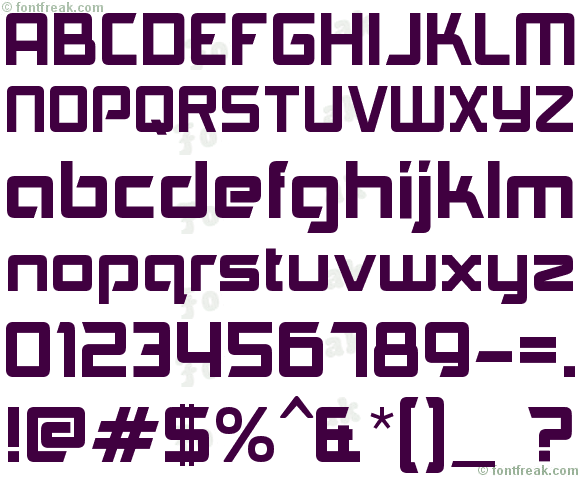
Akashi Regular
About Akashi Regular
The Akashi Regular font, designed by Ten by Twenty, is a striking sans-serif typeface that combines modern aesthetics with a sense of uniqueness. This font showcases a bold stroke weight, providing a commanding presence without compromising readability. The clean lines and geometric shapes create a balanced visual appeal, with consistent spacing that enhances legibility across various applications. Akashi Regular features subtle decorative elements that add character, making it an excellent choice for both professional and creative projects.
This versatile font is perfect for a range of use cases, including restaurant menus where clarity is key, movie posters that demand attention, and branding materials that need a contemporary touch. Its unique style also makes it suitable for event flyers and promotional graphics, allowing small business owners and content creators to present their messages with confidence. The Akashi Regular font is particularly appealing to graphic designers seeking fresh and innovative typefaces to elevate their work.
Targeting a diverse audience, Akashi Regular is ideal for anyone looking to make a statement through typography. Whether you are a small business owner aiming to stand out in a competitive market or a graphic designer experimenting with different styles, this font can meet your needs effectively.